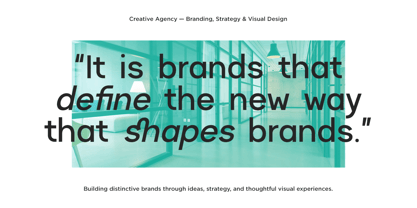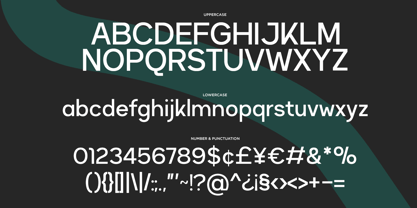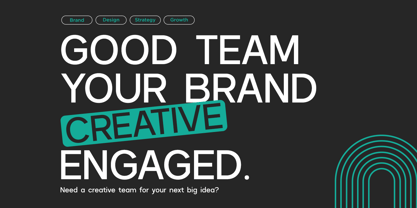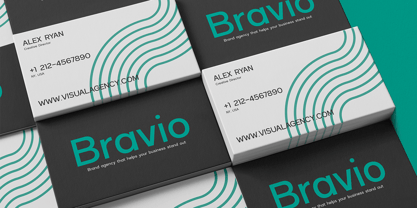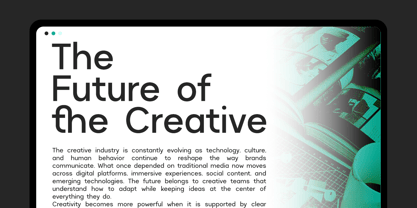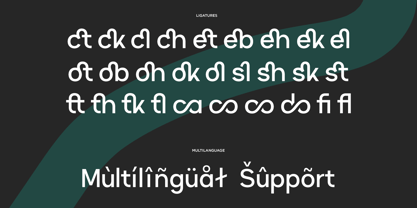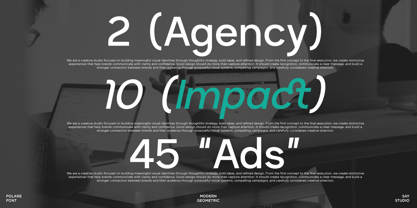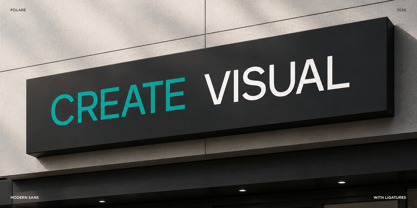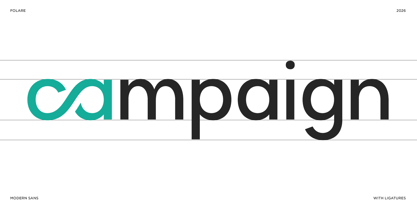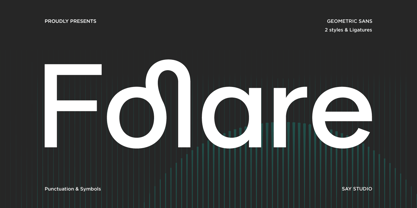
Folare
Die Schriftfamilie Folare wurde von Mussyayin entworfen und von Say Studio veröffentlicht. Folare enthält 2 Stile und Familienpaketoptionen. Mehr über diese Familie
Folare is a modern geometric sans serif font designed with clean forms, balanced proportions, and a contemporary visual character. Its versatile style makes it perfect for branding, logos, creative agencies, advertising, editorial layouts, posters, websites, social media, packaging, and modern business projects.
With its clean and professional appearance, Folare brings a confident and sophisticated look to both display headlines and visual identities.
• Regular and Italic
• Stylistic Ligatures
• Uppercase and Lowercase
• Number, Symbol, and Punctuation
• Multilingual Support